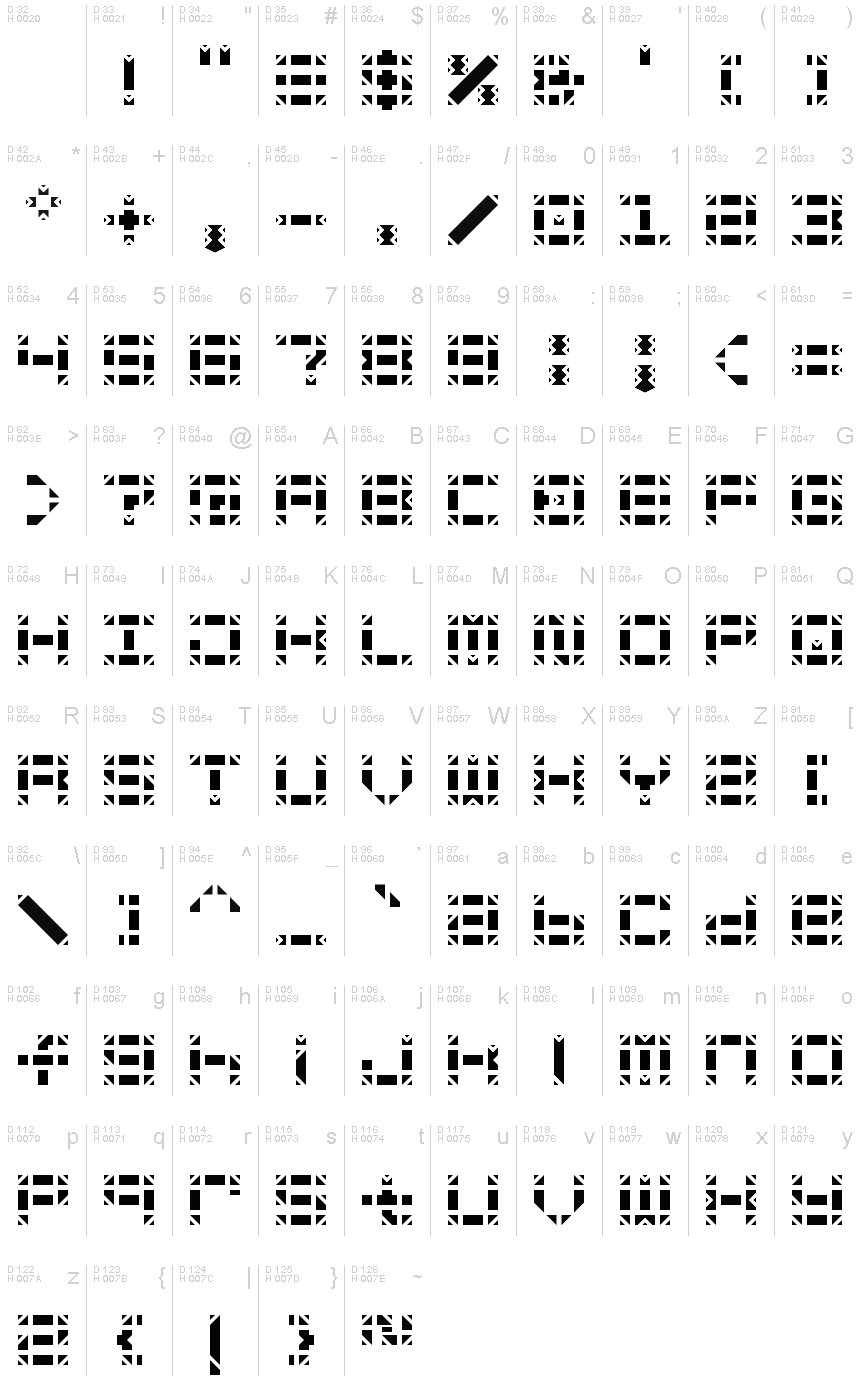
Soretti Stencil Regular
“Soretti Stencil” was built with FontStruct
Designer description: A stencil design in which diagonal cuts are used to imply angles and curves. It does not quite obey the rules of a segmented display, but it tries its best!
This is inspired by some text on the side of the Sheepslayer Mk.2, a flying dragon car piloted by Lyll "Hatch" Soretti in my game Seven Candles.